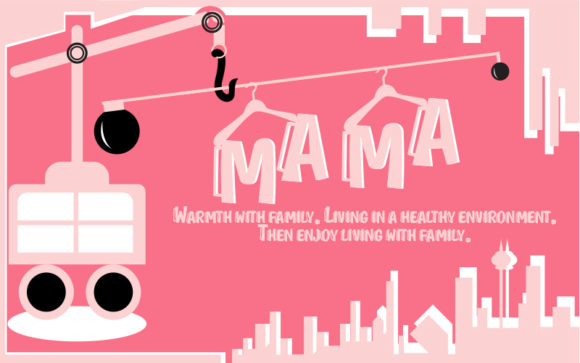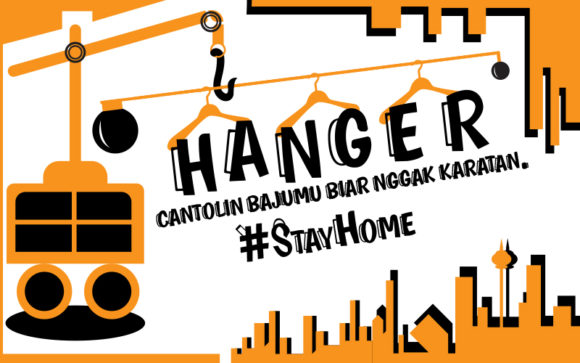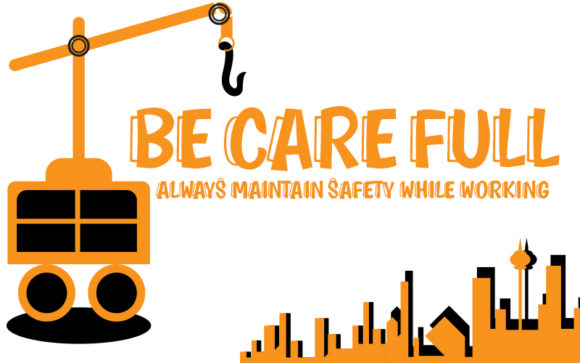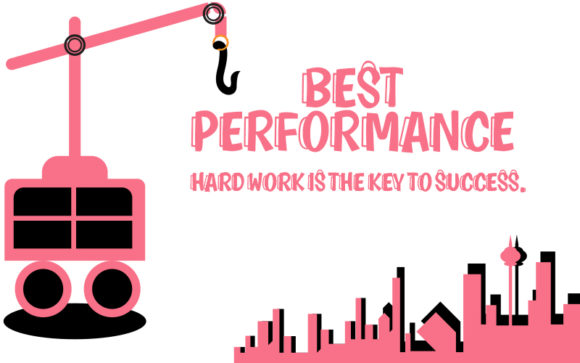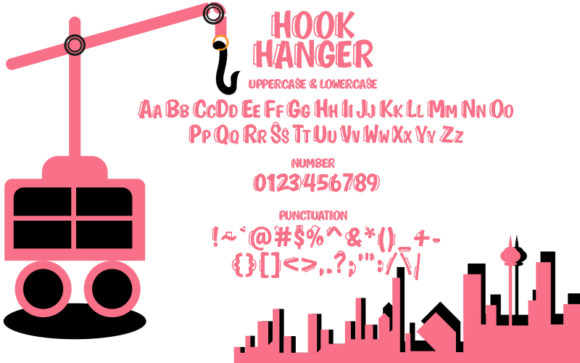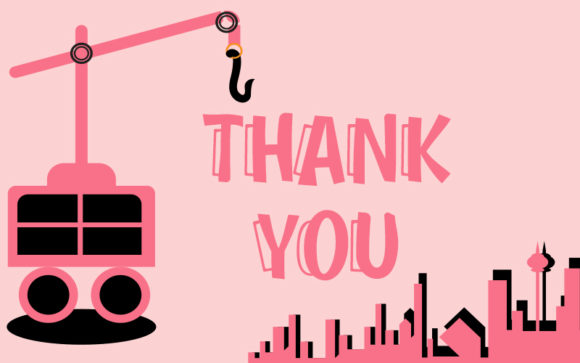
Hook Hanger Font
About Hook Hanger Font
Hook Hanger is a cute and casual handwritten font with an incredibly friendly feel. Whether you’re looking for fonts for Instagram or calligraphy scripts for DIY projects, this font will turn any creative idea into a true piece of art!